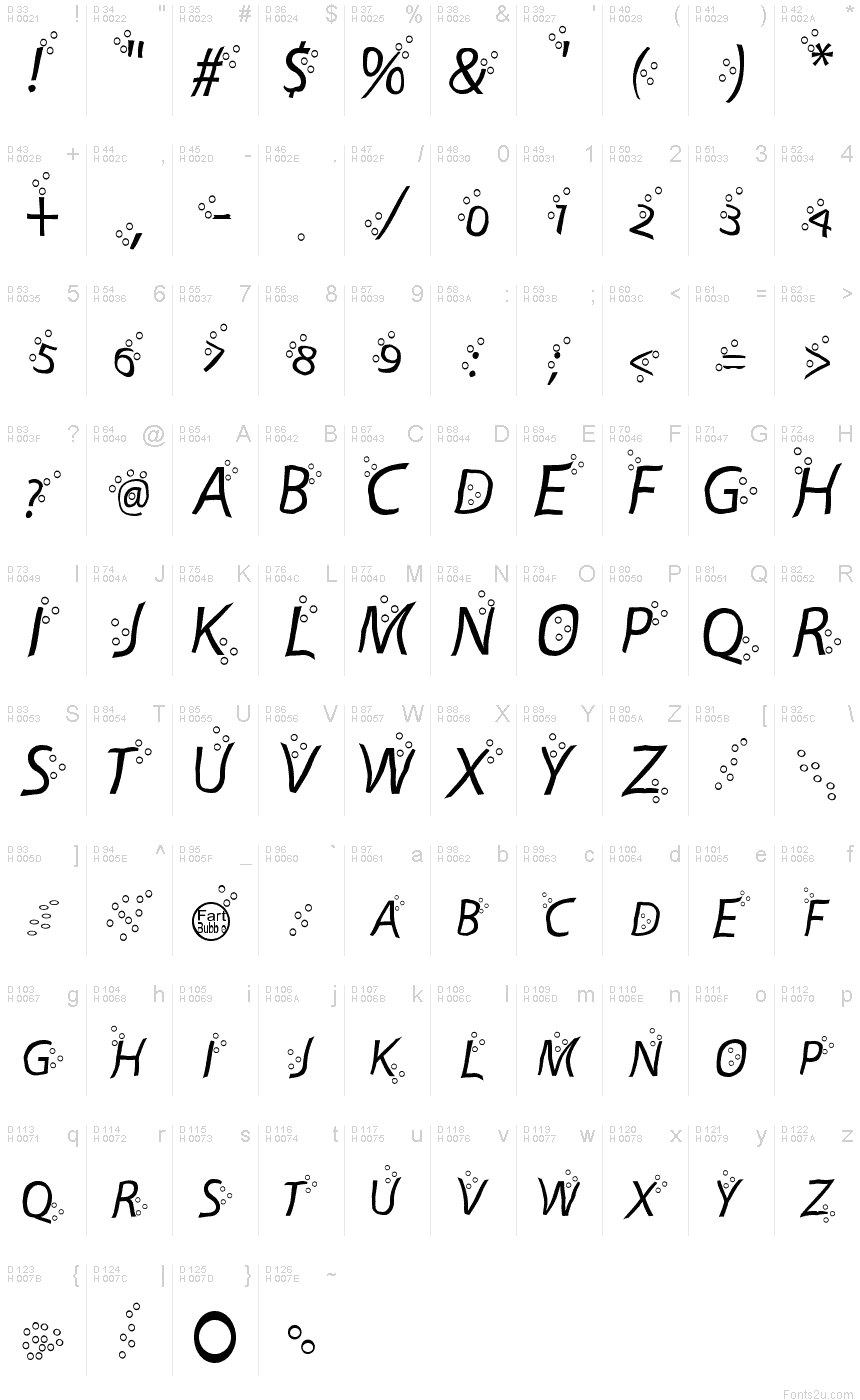
Fart Bubble
Fart Bubble font by PaTriCk DuRR is a free decorative typeface that looks like it’s fizzing off the page, with loose, slightly crooked strokes and clusters of airy bubbles orbiting each letter. Its light, bouncy rhythm gives headlines a mischievous, giggle-inducing tone that feels hand-drawn rather than polished, making it great when you want humor without losing readability.
Using Fart Bubble in bold sizes makes goofy concepts, prank themes, or kids’ content instantly recognizable. This free font shines on birthday invitations, children’s book titles, gag posters, slime or toy packaging, comic sound effects, and playful social media graphics. For balance, pair it with a simple rounded sans serif for body copy so the bubbly letters stay the star of the layout.